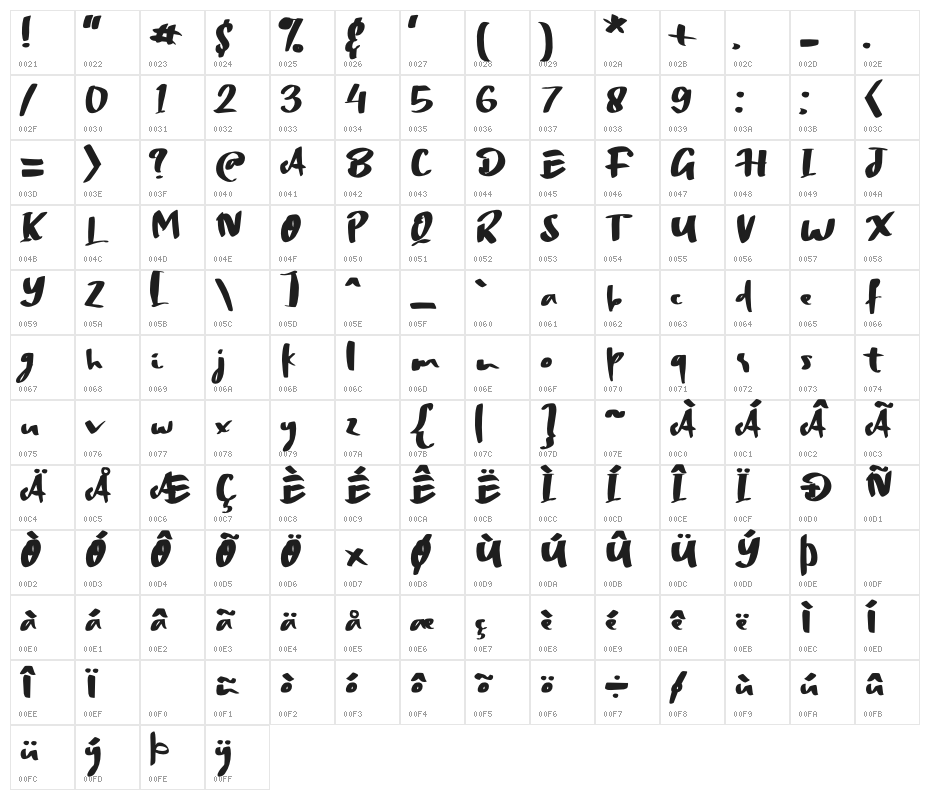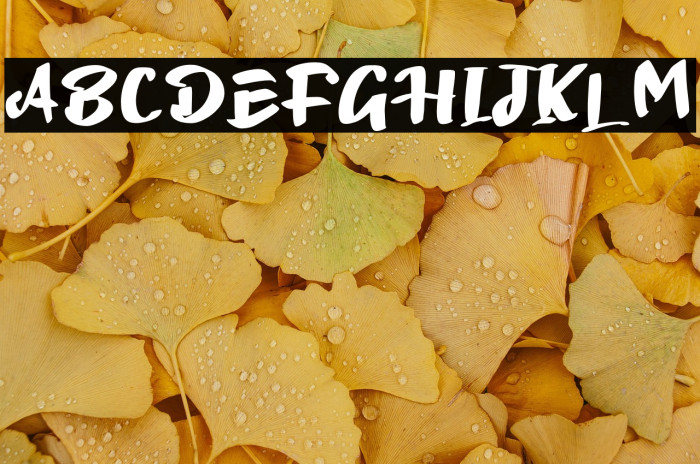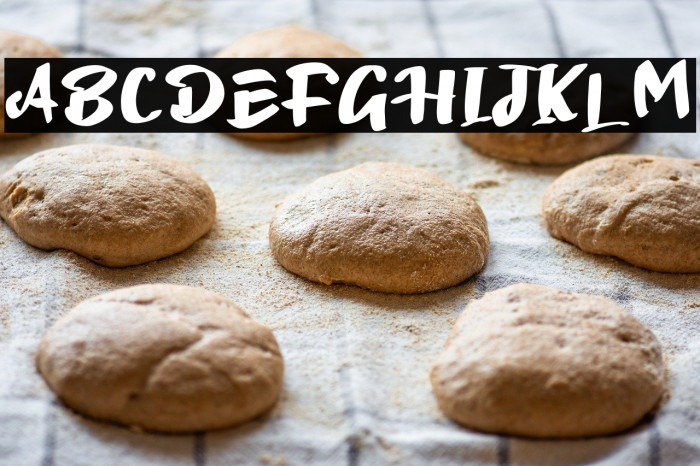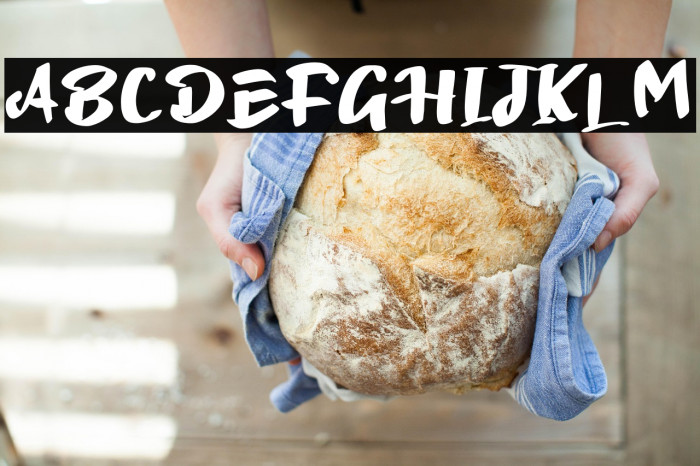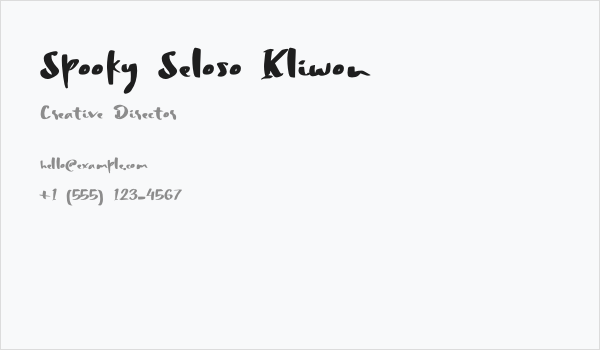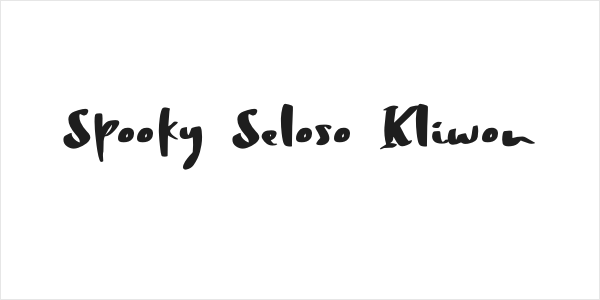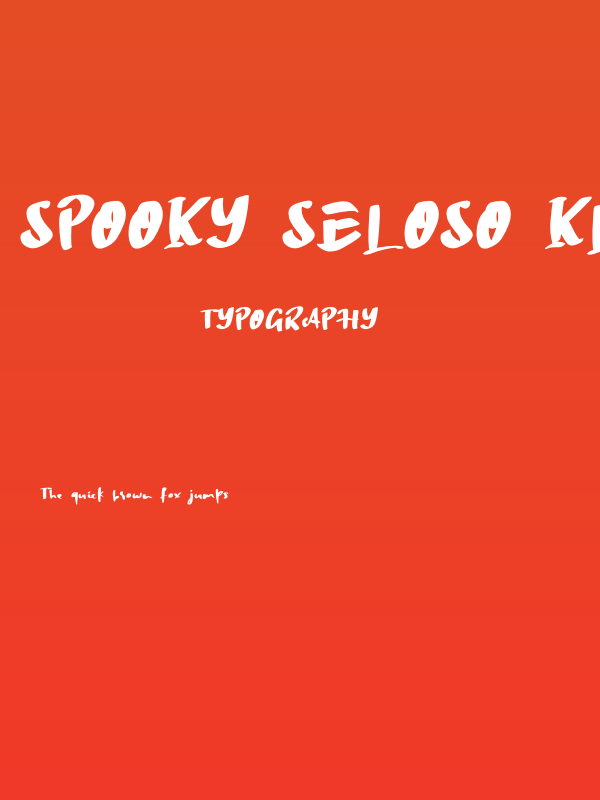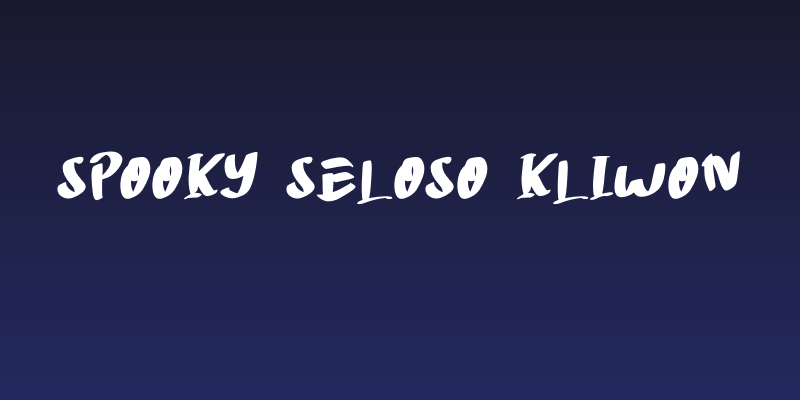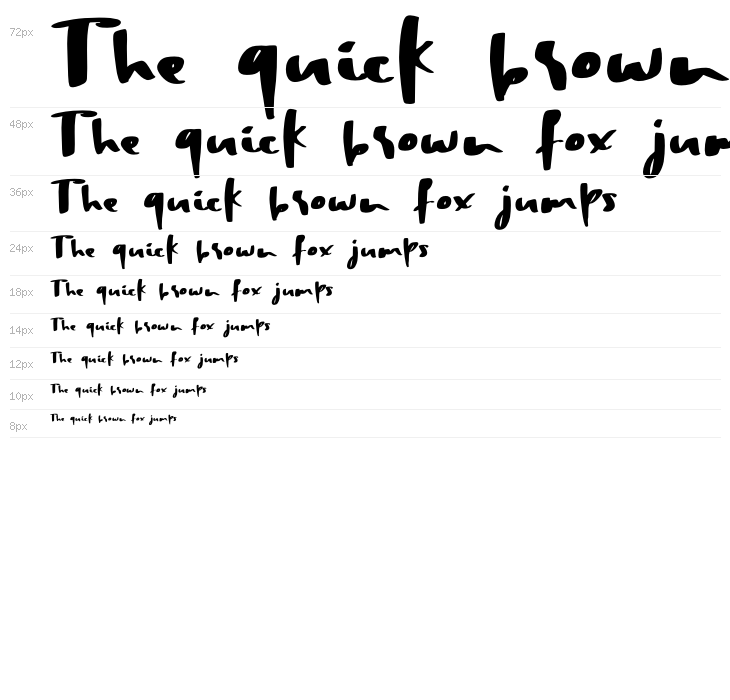
Spooky Seloso Kliwon Font
Spooky Seloso Kliwon Description
This font exudes a bold and energetic style, characterized by its brush-like strokes and dynamic flow. The letters are crafted with a sense of movement, giving them a lively and spontaneous appearance. The uppercase and lowercase letters maintain a consistent style, with thick strokes and rounded edges that enhance their readability. The numbers and special characters follow the same aesthetic, ensuring a cohesive look across all elements. This font's playful yet assertive design makes it suitable for projects that require a touch of creativity and flair.
| Proposed Projects | Ideal for posters, branding, social media graphics, and event invitations. |